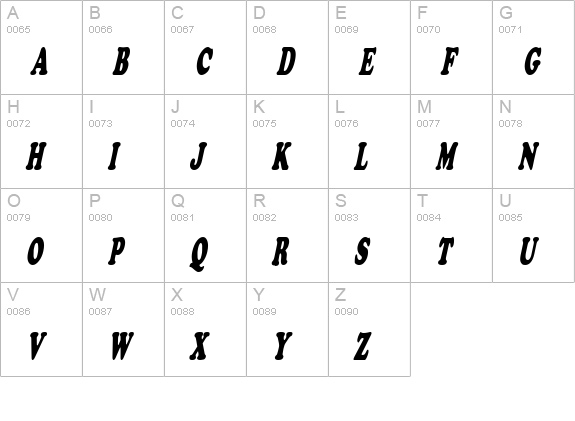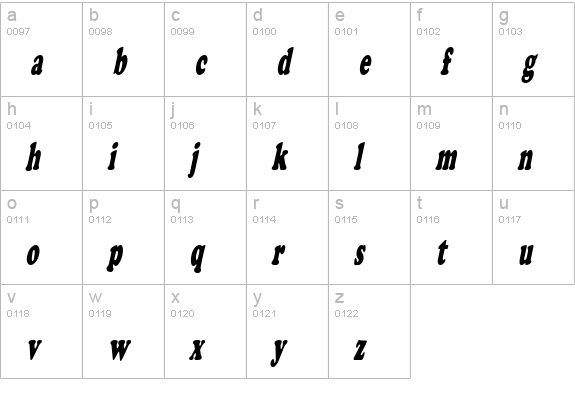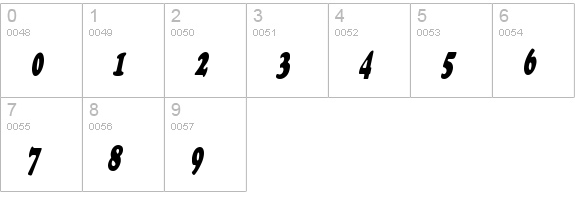
Cupid-Condensed Italic is a distinctive, condensed-width, italic variant in the Cupid typeface family \xE2\x80\x94 well suited to design and typography projects.
Cupid-Condensed Italic font is a sleek and elegant typeface that exudes sophistication and charm. Its condensed design adds a touch of modernity, making it perfect for adding a stylish flair to your projects. The italicized style of the font gives it a sense of movement and fluidity, making it ideal for conveying a sense of grace and elegance. What sets Cupid-Condensed Italic font apart is that it is available for free download at FontsMarket.com. This means that you can easily access this stunning font and use it in your designs without any cost. Whether you're working on a creative project, branding materials, or any other design endeavor, Cupid-Condensed Italic font will elevate your work with its unique and eye-catching appeal. Download Cupid-Condensed Italic font today from FontsMarket.com and add a touch of sophistication to your designs with this stylish and freely available typeface.